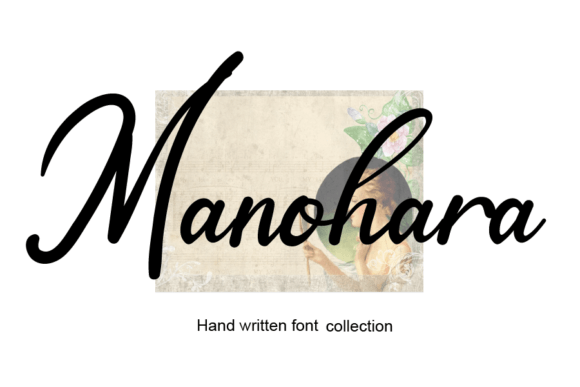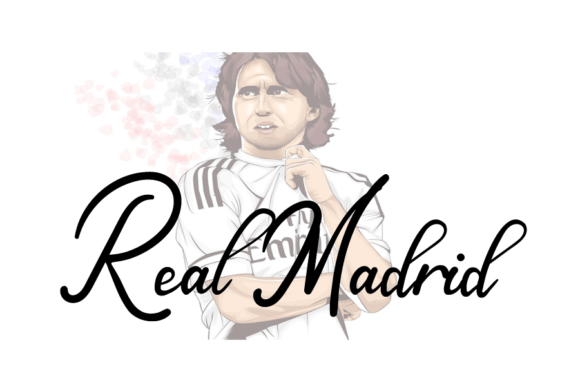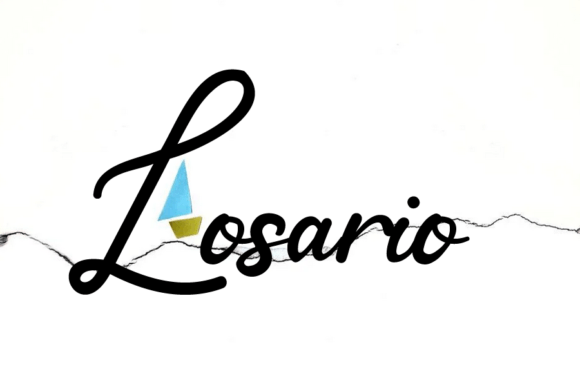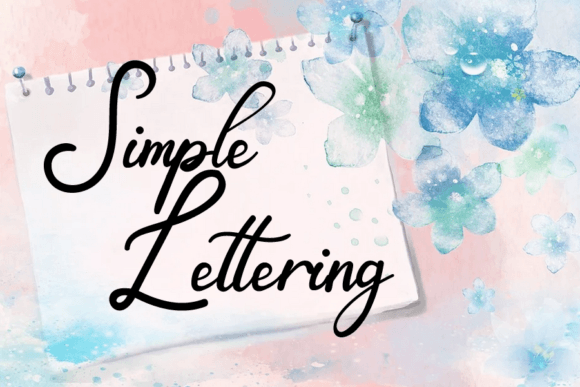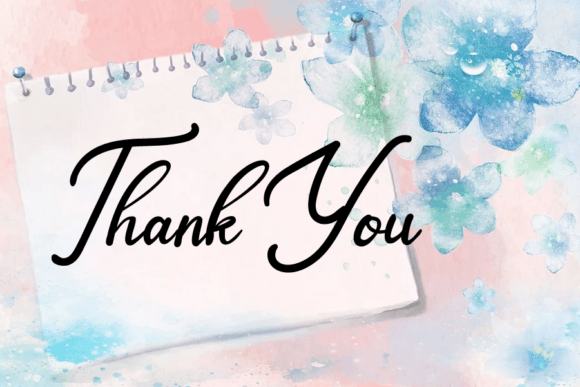
Manohara Font
About Manohara Font
“Manohara” is a timeless handwritten font that exudes classic charm. This versatile script font is well-suited for a wide range of creative applications, from crafting greeting cards to engaging in kids’ craft projects. “Manohara” is sure to infuse a sweet and nostalgic touch into your next design endeavor.
The enduring appeal of “Manohara” lies in its classic handwritten style. Its graceful letterforms and elegant lines create a sense of timelessness, making it an ideal choice for projects that seek to convey a touch of traditional charm.
One of the standout qualities of “Manohara” is its versatility. Whether you’re designing heartfelt greeting cards, engaging in creative kids’ crafts, enhancing the aesthetics of posters, or working on a variety of design projects, “Manohara” adapts seamlessly to your creative vision.
The classic handwritten look of “Manohara” adds a sweet and nostalgic touch to your designs. Whether you’re working on personal or professional projects, this font brings an element of timeless beauty to your work.
In summary, “Manohara” is more than just a font; it’s a versatile and classic creative tool that can enhance your projects. Whether you’re a professional designer or someone passionate about crafting and design, “Manohara” is here to make your designs shine with its classic handwritten charm. Embrace the timeless elegance of “Manohara” and watch your creativity flourish with a sweet touch of nostalgia.